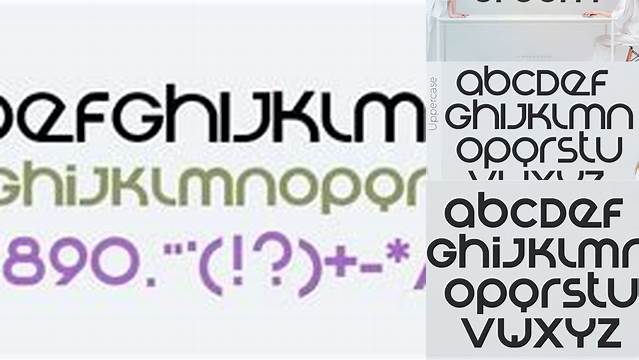
Hey guys! Ever been on the hunt for that perfect font that screams futuristic and sleek but also has a touch of friendly roundness? Well, look no further! Today, we're diving deep into the world of the Orborn font, a fantastic typeface that blends futuristic aesthetics with smooth, rounded edges. And the best part? You can snag it for free! So, buckle up as we explore everything about Orborn, from its unique features to how you can use it to elevate your designs.
What Makes Orborn Font So Special?
The Orborn font isn't just another typeface; it's a design statement. Its rounded corners give it a softer, more approachable feel than typical sharp-edged futuristic fonts. This makes it incredibly versatile for various projects, whether you're designing a cutting-edge website, a sleek logo, or eye-catching marketing materials. The unique blend of modern and approachable is what sets Orborn apart and makes it a favorite among designers.
Orborn Font: A Closer Look at its Design Elements
When we talk about the Orborn font, we're really talking about a meticulously crafted piece of digital art. Each character is designed with precision, ensuring that the rounded corners flow seamlessly into the overall form. This attention to detail is what gives Orborn its distinctive, polished look. Whether you're using it for headlines, body text, or even smaller details like captions, Orborn maintains its clarity and visual appeal. The font's clean lines and balanced proportions make it incredibly readable, which is crucial for ensuring your message gets across effectively.
The Versatility of Orborn: Where Can You Use It?
The beauty of the Orborn font lies in its versatility. It's not just limited to tech-related projects; it can be used in a wide range of designs. Imagine using it for a modern café's branding, a futuristic game's logo, or even the header of a blog focused on innovative ideas. Its rounded edges make it approachable, while its overall design keeps it feeling contemporary and fresh. This adaptability makes Orborn a valuable asset in any designer's toolkit. You can pair it with other fonts to create interesting contrasts, or use it as the primary font to establish a consistent, modern aesthetic.
Using Orborn Font in Your Design Projects
Now that you've got the Orborn font installed, it's time to unleash its potential in your design projects. Whether you're working on a website, a logo, or a marketing campaign, Orborn can add a touch of modern sophistication to your creations. Experiment with different sizes, weights, and colors to see how Orborn can best complement your overall design. Don't be afraid to get creative and push the boundaries of what's possible with this versatile typeface. The key is to find the right balance and use Orborn in a way that enhances your message and resonates with your target audience.
Orborn Font for Websites: Creating a Modern Look and Feel
When it comes to website design, the Orborn font can be a game-changer. Its futuristic yet approachable aesthetic makes it perfect for creating a modern look and feel that will capture your visitors' attention. Use it for headings to make a bold statement, or incorporate it into your body text to improve readability and maintain a consistent visual style. The rounded corners of Orborn give it a friendly vibe, which can help to create a welcoming and engaging online experience. Plus, its clean lines and balanced proportions ensure that your website looks polished and professional. Whether you're designing a personal blog or a corporate website, Orborn can help you create a digital presence that stands out from the crowd.
Designing Logos with Orborn Font: Making a Lasting Impression
A well-designed logo is essential for any brand, and the Orborn font can be a valuable tool in creating a memorable and impactful visual identity. Its unique blend of futuristic and rounded elements makes it perfect for logos that need to convey innovation, modernity, and approachability. Experiment with different letter combinations and typographic arrangements to create a logo that is both visually appealing and representative of your brand's values. The clean lines and balanced proportions of Orborn ensure that your logo will look great in both large and small sizes, making it suitable for a wide range of applications. Whether you're designing a logo for a tech startup or a creative agency, Orborn can help you make a lasting impression.
What Makes Orborn Font Unique?
The Orborn font is unique due to its blend of futuristic design and rounded corners, making it both modern and approachable. This combination sets it apart from other fonts that are either too sharp or too generic.